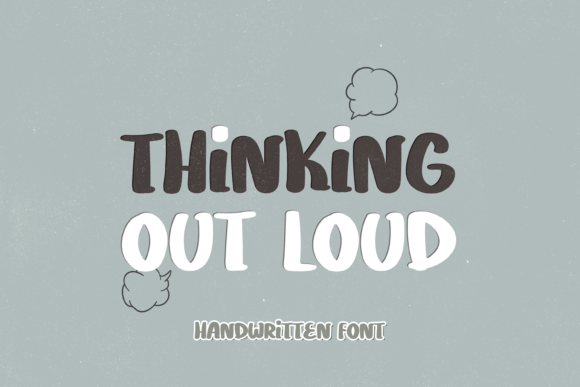
Thinking out Loud Font
Embrace the bold and unconventional spirit of Thinking Out Loud Font, a captivating display font that will ignite your designs with its playful charm and undeniable presence. Crafted by WADLEN, this font is a masterpiece of thick, quirky letters that dance across the page, injecting a touch of whimsy into every word.
Unleash your creativity and let Thinking Out Loud Font transform your designs into extraordinary works of art. Its vibrant, larger-than-life personality commands attention and sparks dialogue, making it the perfect choice for headlines, posters, branding, and any project that demands a bold statement.
With Thinking Out Loud Font, you'll find endless ways to make your words sing. Its playful curves and unexpected angles add a touch of magic to every design, inviting your audience to engage, interact, and let their imaginations soar.
Step into the world of Thinking Out Loud Font and experience the sheer joy of self-expression. This font is not just a collection of letters; it's an invitation to think outside the box, embrace the extraordinary, and let your creativity shine through.